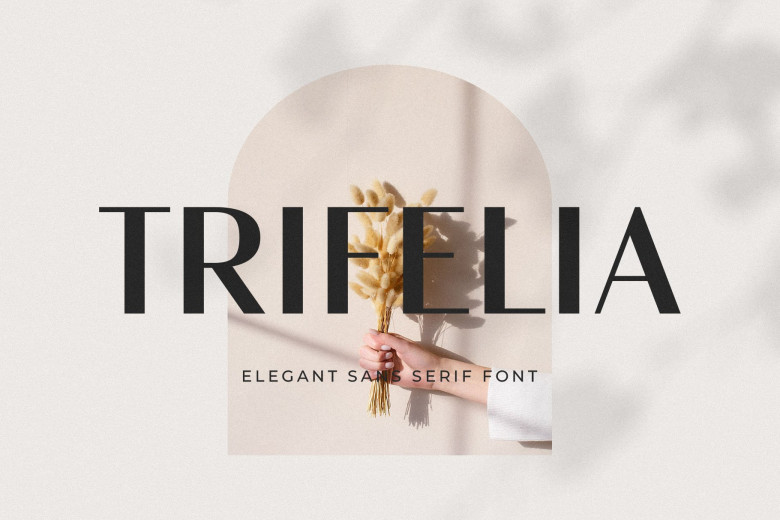
Trifelia Font
Trifelia is a modern and classy sans serif font, best used as a display for headings, logos, branding, magazines, product packaging and invitations. Trifelia come with clean lines and smooth curves give any project an extra touch of class.
Trifelia Sans Serif Font